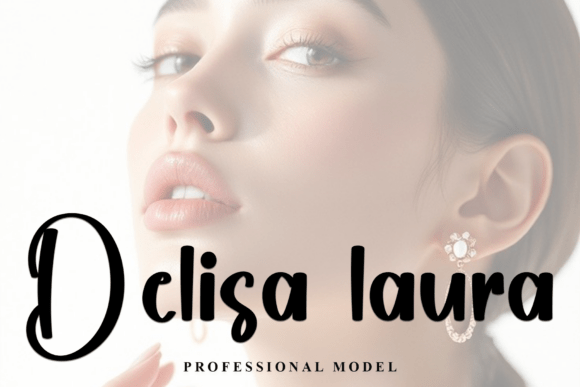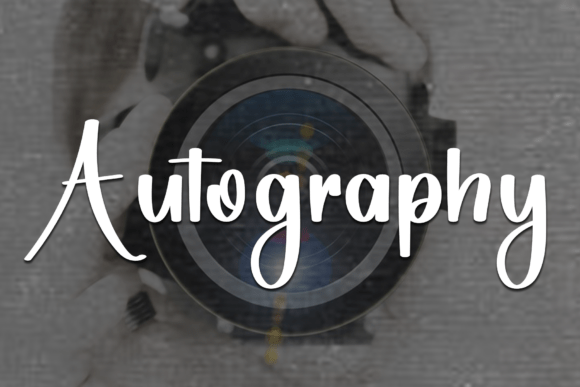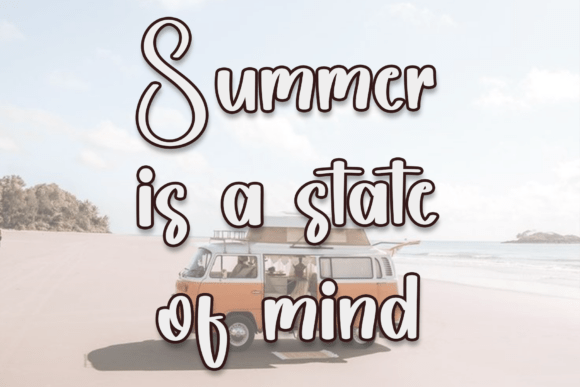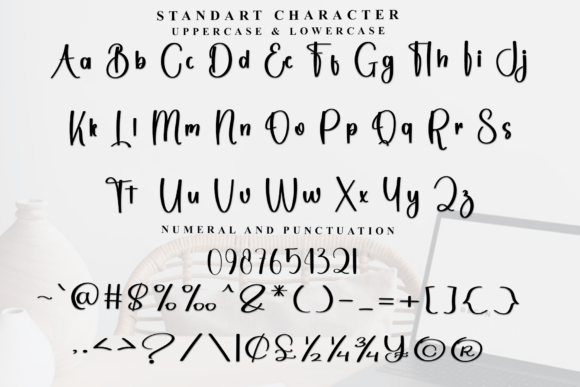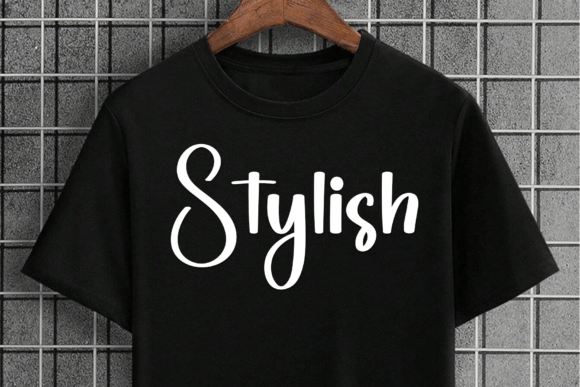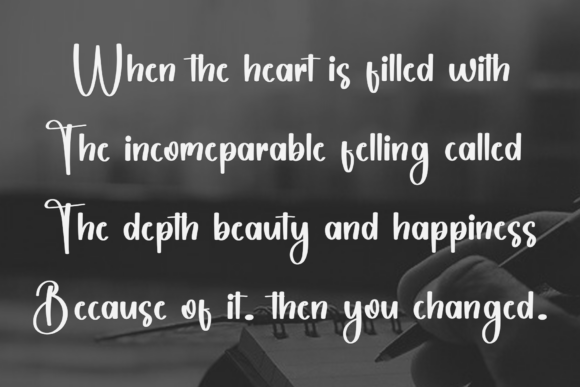
Introduction to Smile Birthday Font
As you sit at your desk, surrounded by half-finished projects and scribbled notes, you finally land on the perfect design idea – a birthday invitation that’s sure to make the recipient’s day. But, the font just isn’t quite right. That’s when you stumble upon the Smile Birthday Font – a game-changer for any creative project seeking a high-quality, celebratory feel.
This exuberant and bold calligraphy font is a design resource that brings a sense of fun and excitement to any design. Its strong, rounded strokes and lively script style make it perfect for birthday cards, party announcements, event banners, children’s products, and any design aiming for a cheerful, impactful, and easy-to-read handwritten display. With a transparent background, this versatile font can be easily layered over any design element, making it a valuable asset for designers looking to elevate their work.
Key Features of Smile Birthday Font
- Unique and playful design perfect for creative projects and celebrations.
- High-quality font with a transparent background, ideal for use on various backgrounds.
- Designed to be scalable, suitable for use in various sizes, from small to large (up to 300 DPI resolution).
- Features a bold and cheerful style, perfect for birthday invitations, cards, and other celebratory designs.
Honest Review: Smile Birthday Font
I recently stumbled upon the Smile Birthday Font, and I must say it’s a wonderful addition to any design project. ✨ The font’s playful and cheerful vibe makes it perfect for creating fun and engaging designs, especially for birthday-themed projects.
One of the standout features of this font is its high quality. The designer has done an excellent job in crafting a clear, readable, and aesthetically pleasing font. Whether you’re working on a creative project or just need a quick design fix, the Smile Birthday Font is a great design resource to have in your toolkit.
Here are some of the things that I love about the Smile Birthday Font:
- ✨ The font has a transparent background, which makes it easy to use with any design element.
- ✨ The font is highly versatile and can be used for a wide range of design projects.
- ⚠️ The font’s design may not be suitable for more formal or professional projects.
Overall, I’m thoroughly impressed with the Smile Birthday Font. It’s a great addition to any design library, and I would highly recommend it to designers of all levels. With its high quality, versatility, and ease of use, the Smile Birthday Font is an excellent choice for any creative project.
Smile Birthday Font Overview
The Smile Birthday Font is a high-quality design resource ideal for creative projects, particularly those that require a touch of warmth and celebration. This free download features a transparent background, making it easily editable and customizable.
Tips for Getting the Most Out of Smile Birthday Font
For optimal results, use the font in conjunction with other design elements, such as images and graphics. Experiment with different font sizes and styles to create visual interest.
Common Use Cases for Smile Birthday Font
The Smile Birthday Font is perfect for designing birthday cards, invitations, and social media posts. It’s also suitable for creating engagement announcements, party decorations, and other celebratory materials.